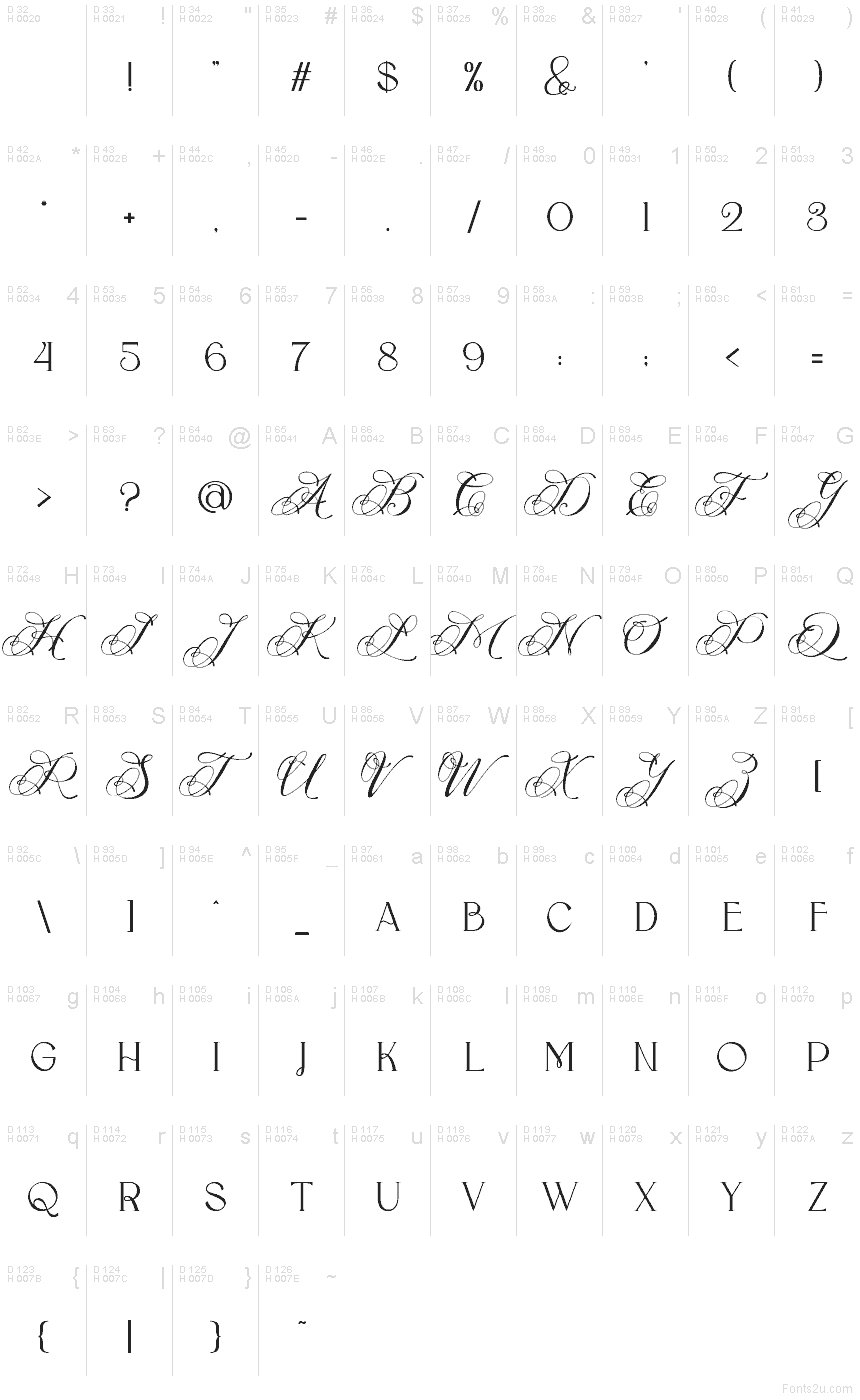
Flece Display
Fleece Display font by PutraCetol Studio is a decorative and ornate display typeface that can immediately captivate audiences. Its elegant and sophisticated look comes from its shapes’ well-structured letterforms each presenting looping thick strokes that together create an artful visual flow in text. The font’s historical flair adds to its professional formal appearance.
This free display font is great for projects like invitation cards, greeting cards, posters, magazine covers, typography artwork, quotes artwork, branding design, social media posts, and website headers. Use it with print-based design items like packages or shoes or try it on fabric designs such as T-Shirts.